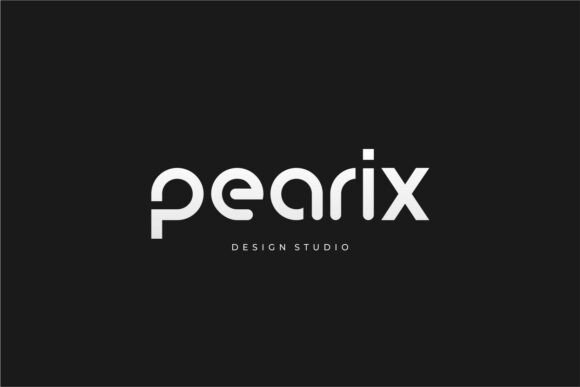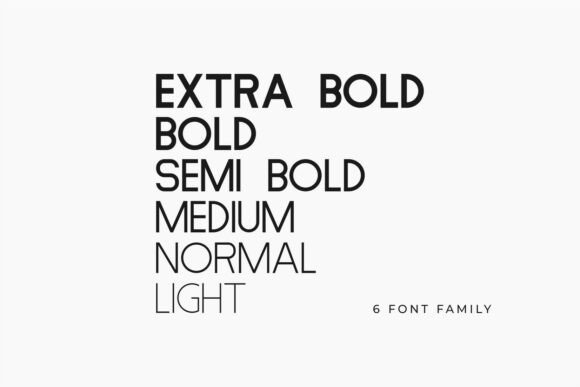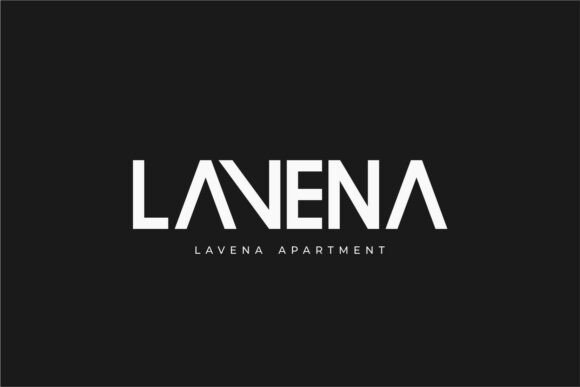
Introduction to Polea Normal Font
As designers, we’ve all been there – staring at a blank canvas, trying to find the perfect font to bring our creative project to life. But what if you could have a trusted companion in your design journey, a font that’s as versatile as it is elegant? Enter the Polea Normal Font, a modern minimalist sans serif font that’s set to revolutionize your design workflow.
With its clean lines and refined style, Polea Normal Font is the ultimate design resource for any creative project. Whether you’re working on a luxury brand or a minimalist campaign, this high-quality font delivers clarity and class with effortless ease. And with PUA encoding, you can access all alternates and flourishes without needing any design tools.
Key Features of Polea Normal Font
- Polea Normal Font is a high-quality design resource ideal for creative projects that require a clean and modern aesthetic.
- Polea Normal Font is designed to provide a neutral and elegant look, making it an excellent choice for a variety of creative projects.
Honest Review: Polea Normal Font
As a designer, I’m always on the lookout for high-quality design resources to elevate my creative projects. Recently, I had the chance to try out the Polea Normal Font, and I’m excited to share my honest review with you.
- ✨ High-quality font: The Polea Normal Font is incredibly well-designed, with clean lines and a smooth texture that makes it perfect for digital use.
- ✨ Versatile: This font is incredibly versatile and can be used for a wide range of creative projects, from web design to graphic design and even printing.
- ⚠️ Limited character set: The font only comes with a standard character set, which may not be suitable for projects that require a wider range of characters (e.g., languages other than English).
- ⚠️ Not suitable for small text: Due to its design, the Polea Normal Font may not be the best choice for small text sizes, as it can become difficult to read.
Overall, I’m impressed with the Polea Normal Font. While it has some limitations, its high-quality design and versatility make it a valuable addition to any designer’s toolkit. If you’re looking for a reliable font for your next creative project, I’d definitely recommend giving it a try.
For getting the most out of the Polea Normal Font, experiment with different font sizes and colors to create visual interest. Use it for headings, titles, and body text in your designs. Common use cases include creating social media graphics, presentation slides, and marketing materials.